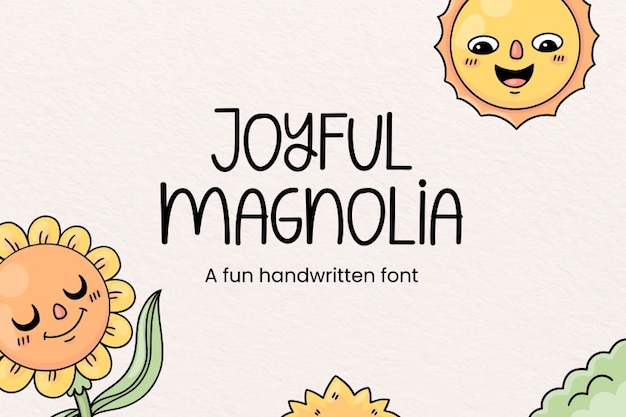
Joyful Magnolia
Joyful Magnolia Font
Joyful Magnolia is a funny typeface that will give your projects a cute touch. You can add it to your invitation cards, templates, backgrounds and much more. Download it now and start creating!